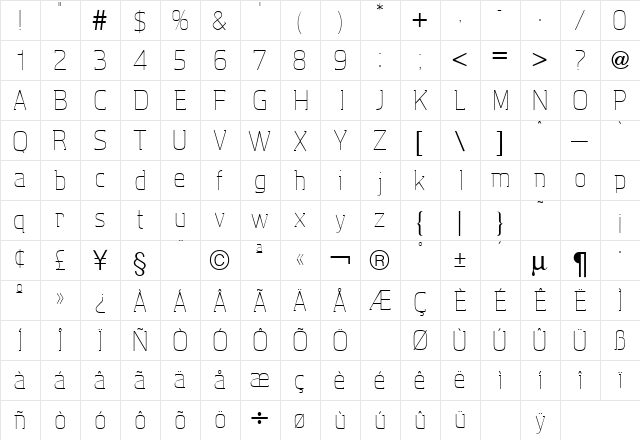
Aquarius Two Regular
Design Context for Aquarius Two Typeface
Aquarius Two takes a measured approach to typography — its balanced proportions and neutral character make it a reliable workhorse for both digital and print work.